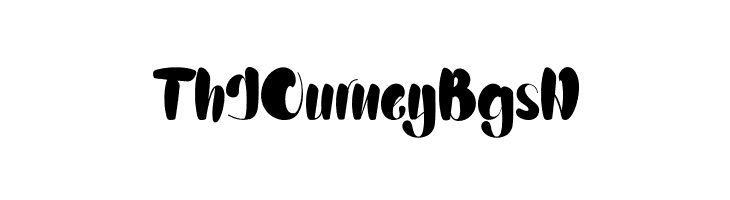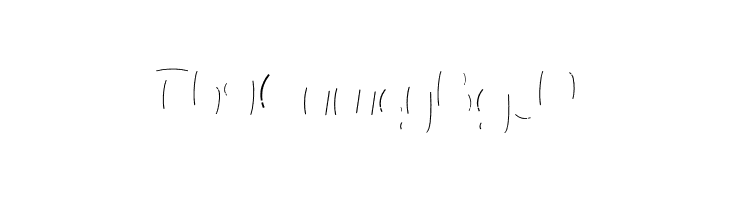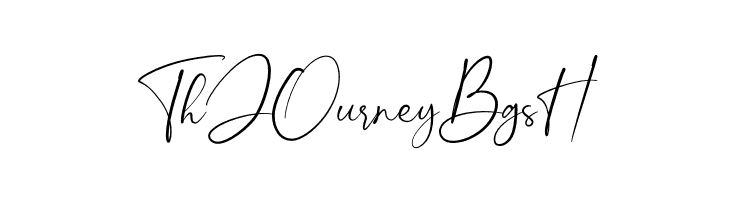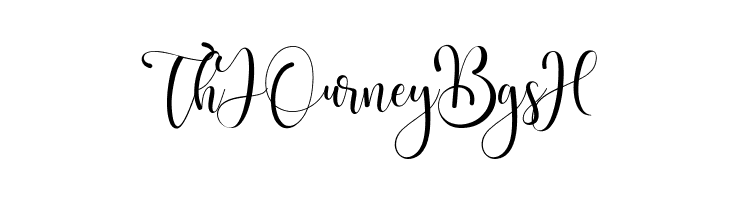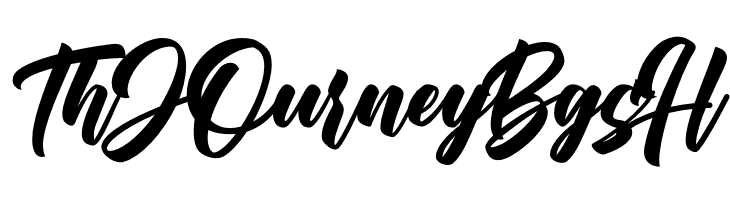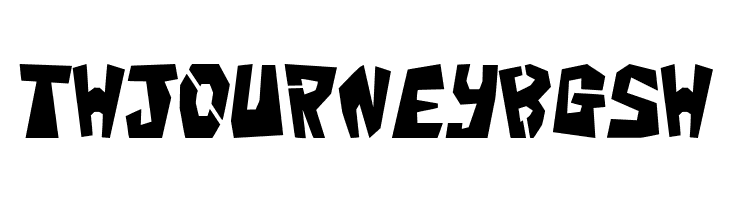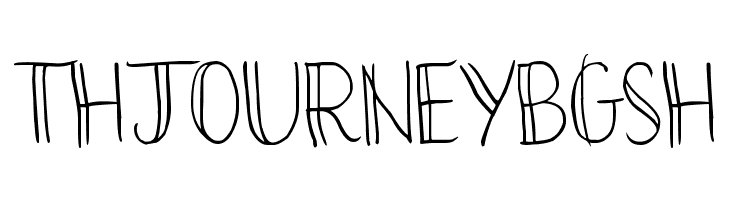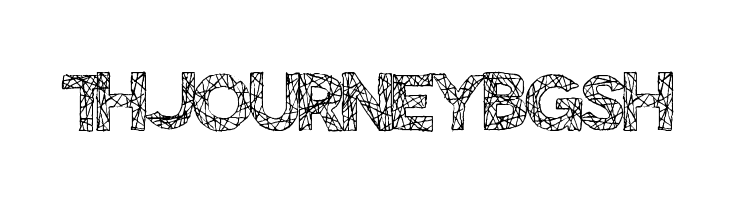
A delicate and flowing script font with elegant curves and a polished look.
A graceful script font with flowing, cursive letters and elegant loops.
A playful, casual handwritten font with smooth, flowing curves.
An elegant script font with flowing, decorative strokes and graceful flourishes.
A playful, balloon-like font with rounded and elongated letterforms.
A playful, balloon-like font with bold, rounded characters.
A playful, balloon-like font with rounded, bold characters.
A casual, handwritten-style font with smooth, medium-thick strokes.
An elegant, flowing script font with thin, elongated strokes and graceful curves.
A bold, handwritten font with dynamic and fluid characters.
An elegant, cursive font with fluid, connected strokes and a refined appearance.
A bold, cursive script font with elegant, flowing lines and connected characters.
A bold, decorative serif font with playful curves and modern elements.
A dynamic handwritten font with fluid, continuous strokes and a casual elegance.
A decorative font with intricate, nature-inspired bamboo-like patterns.
A playful, casual handwritten font with smooth, rounded edges.
A bold, vintage-style font with a rugged, Wild West aesthetic.
A lively, handwritten font with expressive strokes and a playful yet sophisticated style.
A bold, textured font with a distressed, vintage appearance.
An elegant, flowing script font with ornate uppercase and fluid lowercase letters.
A decorative and vintage-style font with ornate uppercase letters and complementary lowercase characters.
A modern, geometric sans-serif font with clean lines and uniform stroke width.
Bold, geometric pictogram set for prohibition signage.
A bold, hollow font with a three-dimensional effect and consistent stroke width.
A bold, three-dimensional font with a shadowed outline for a modern, impactful look.
A bold, brush-style font with dynamic, expressive strokes.
A bold, playful font with whimsical curves and clear readability.
A bold slab serif font with strong, block-like serifs and uniform width.
A bold, rugged font with jagged edges and a strong visual impact.
A rugged, italicized font with a bold, jagged appearance.
A bold, dynamic script font with interconnected, flowing letters and a modern, playful style.